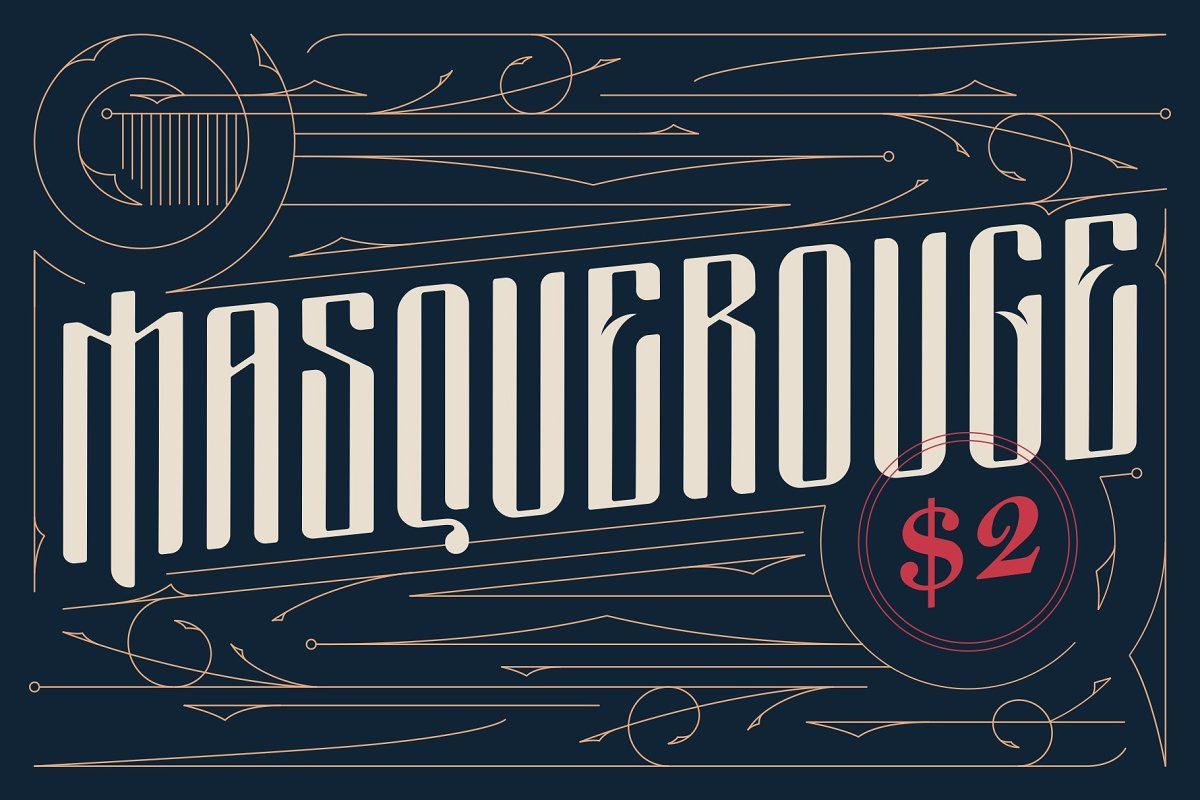
Masquerouge victorian font
Masquerouge Victorian Font is ideal for vintage wedding invitations, historical book covers, period drama posters, antique shop branding, luxury hotel signage, classical theater programs, heritage museum displays, and elegant certificate designs.
This exciting Masquerouge Victorian Font transports viewers to the grandeur of the Victorian era with its ornate flourishes and sophisticated decorative elements that embody the opulence and refinement of 19th-century typography. The font's intricate details and historical authenticity make it perfect for projects requiring elegance, tradition, and timeless sophistication that resonates with audiences appreciating classical design aesthetics.
The Masquerouge Victorian Font family encompasses multiple ornamental styles including Regular, Ornate, Decorative, Capitals, Swash variants, and Flourished versions, offering designers comprehensive options for creating elaborate and historically accurate typographic compositions.
Immerse yourself in historical elegance with Masquerouge Victorian Font Free Download - a meticulously crafted typeface that captures the essence of Victorian-era craftsmanship and decorative arts. This distinguished font brings authentic period styling to modern design projects while maintaining readability and professional quality standards for contemporary applications.
The ornate character of Masquerouge Victorian Font makes it exceptionally suitable for luxury brands, heritage businesses, antique dealers, wedding planners, and establishments that want to convey tradition, elegance, and timeless sophistication. Its elaborate styling appeals to consumers who appreciate craftsmanship, history, and classic refinement.
Typography specialists choose Masquerouge Victorian Font for its authentic historical accuracy and exceptional attention to decorative detail. The font performs beautifully in both intimate applications like personal stationery and grand-scale uses such as architectural signage, maintaining its ornate character across various sizes and contexts.
The distinctive ornamentation of Masquerouge Victorian Font creates immediate visual impact and emotional connection with audiences who value tradition, heritage, and classical beauty. This makes it an excellent choice for businesses and events seeking to establish premium positioning through historical elegance and sophisticated design sensibilities.
Period-appropriate designs benefit from Masquerouge Victorian Font's authentic Victorian styling, which helps create immersive experiences for historical reenactments, themed events, museums, and educational materials that require accurate representation of 19th-century decorative typography and ornamental design traditions.